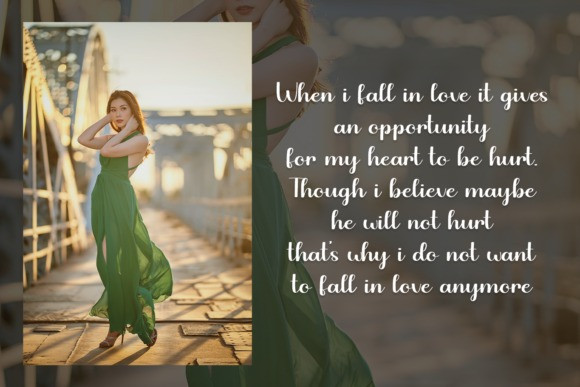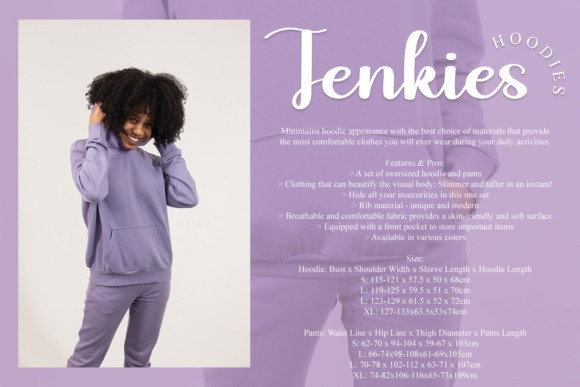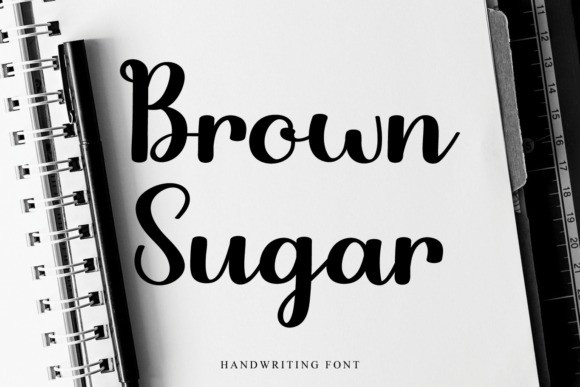
Brown Sugar Font
Brown Sugar Font is a flowing and graceful script font. Fall for its ravishing style and use it to create gorgeous wedding invitations, beautiful stationary art, eye-catching social media posts, and much more!